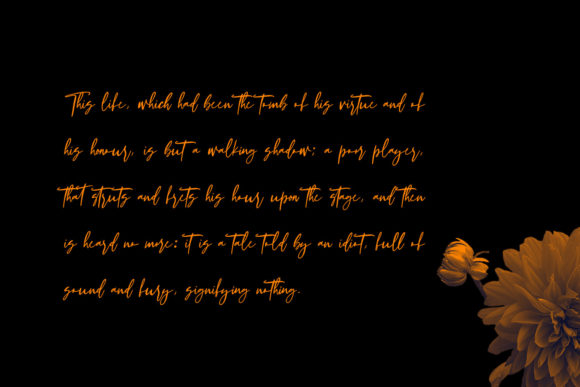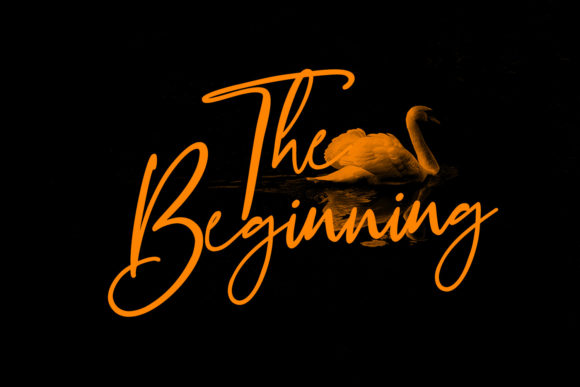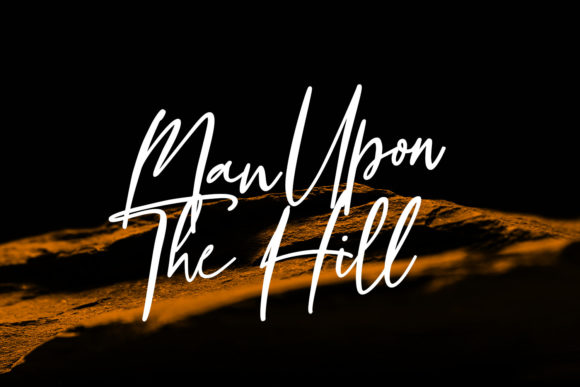
Introduction to Hillstatic Script Font
Have you ever found yourself staring at a blank canvas, struggling to find the perfect font to bring your creative project to life? I know I have. It’s like searching for a missing piece of a puzzle, and it can be frustrating. But what if I told you that there’s a font that can change all that? Enter the Hillstatic Script Font, a stunning script font that’s perfect for fashion branding, editorial designs, and any project that needs a touch of elegance.
This high-quality font is all about smooth curves and effortless style. It’s the perfect addition to any design resource, and with a transparent background, you can easily incorporate it into your work. And the best part? You can download it for free, making it an invaluable asset for designers of all levels.
Whether you’re working on a creative project or simply looking to elevate your design game, the Hillstatic Script Font is a must-have. Its versatility and sophistication make it a valuable resource that’s sure to impress. So why wait? Add it to your collection today and experience the difference it can make in your designs.
Key Features of Hillstatic Script Font
- Hillstatic Script Font is a beautiful, high-quality font perfect for creative projects requiring a unique touch.
- Hillstatic Script Font features a transparent background, allowing for seamless integration with various backgrounds and designs.
- Hillstatic Script Font is available in a single size, making it easy to use and customize for various design projects.
- The font has a high resolution, ensuring crisp and clear text display, even at large sizes.
- Hillstatic Script Font is ideal for creative projects requiring a unique, handwritten touch, making it a valuable addition to any design resource library.
Honest Review: Hillstatic Script Font
I recently had the chance to work with the Hillstatic Script Font, and I must say it’s been a great addition to my design resources. ✨ Its high-quality design makes it perfect for any creative project, whether it’s a logo, typography-based design, or even a simple text overlay.
One of the things that caught my attention was the transparent background, which allows for seamless integration with any background image or color. This feature makes it an ideal design resource for designers who value flexibility.
Here are some of the key features that work well for the Hillstatic Script Font:
- High-quality design that stands out ✨
- Perfect for creative projects, such as logos, typography-based designs, and text overlays
- Transparent background for seamless integration
However, I did notice a few limitations: ⚠️ The font might not be suitable for large blocks of text due to its script nature, and it’s not compatible with all operating systems.
Overall, I’m impressed with the Hillstatic Script Font and would definitely recommend it to designers looking for a high-quality, creative design resource.
To use the Hillstatic Script Font in PowerPoint and Word, install the font on your computer and then select it from the font library. This font is perfect for creating beautiful presentations and documents, with its elegant script style adding a touch of sophistication to your content.
Tips for Getting the Most Out of Hillstatic Script Font
For the best results, use the Hillstatic Script Font in conjunction with a clean and simple background. This will allow the font to take center stage and make your design truly stand out. Additionally, experiment with different font sizes and colors to add depth and visual interest to your design.
The Hillstatic Script Font is ideal for a wide range of creative projects, including wedding invitations, branding materials, and social media graphics. Its elegant script style makes it perfect for adding a touch of sophistication to your designs, while its transparent background capabilities make it ideal for creating custom graphics and illustrations.
Can I use the Hillstatic Script Font with a transparent background?
Yes, the Hillstatic Script Font supports transparent backgrounds, making it ideal for use in designs with complex backgrounds or effects. This feature allows you to create visually striking designs that integrate seamlessly with your creative project’s aesthetic.